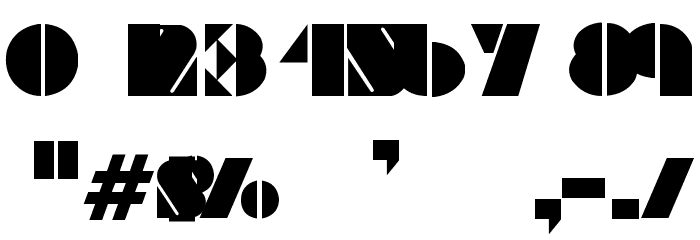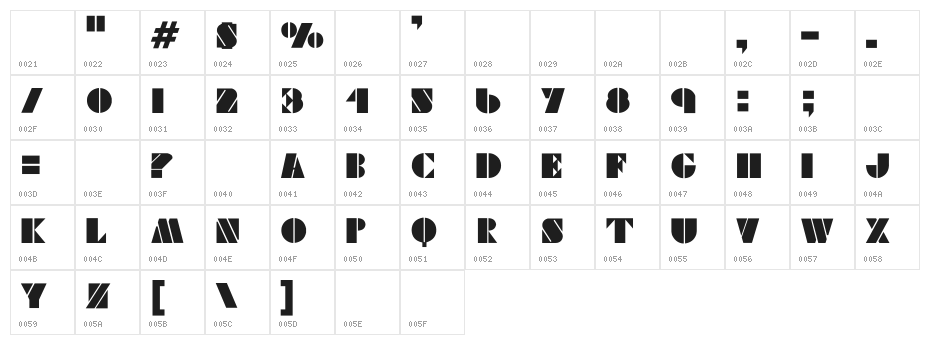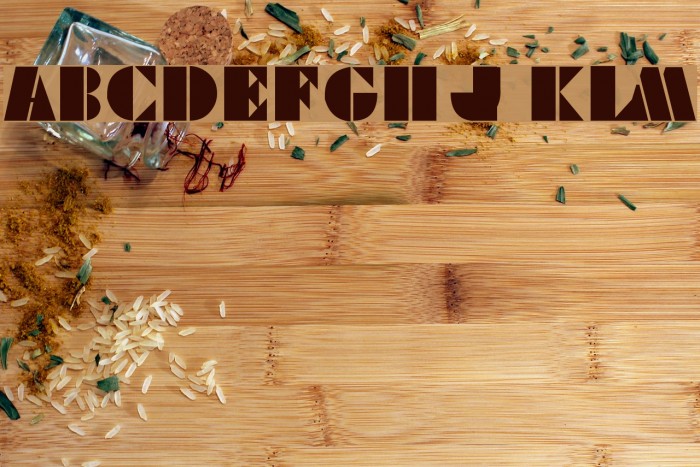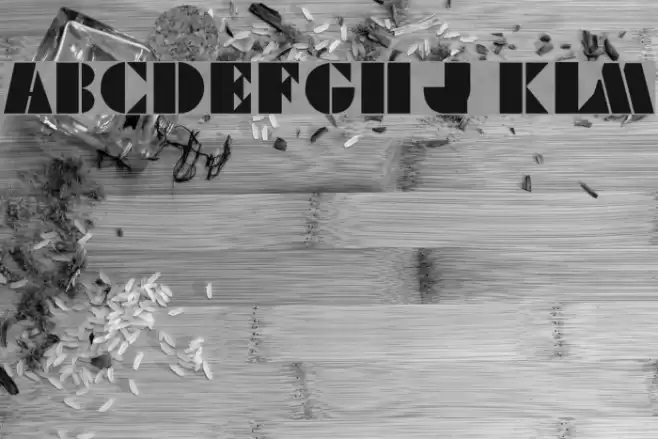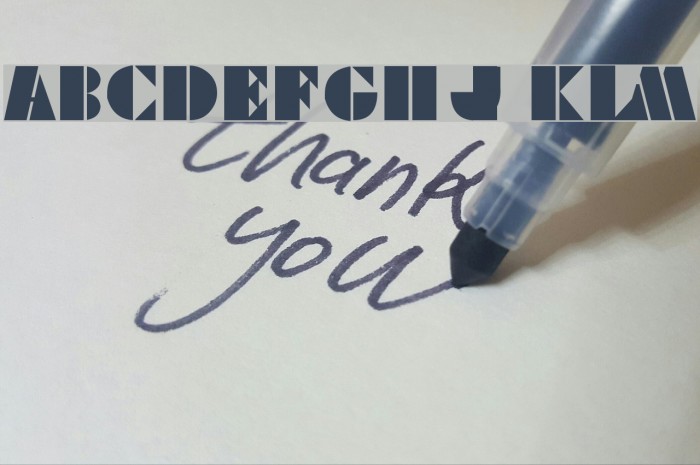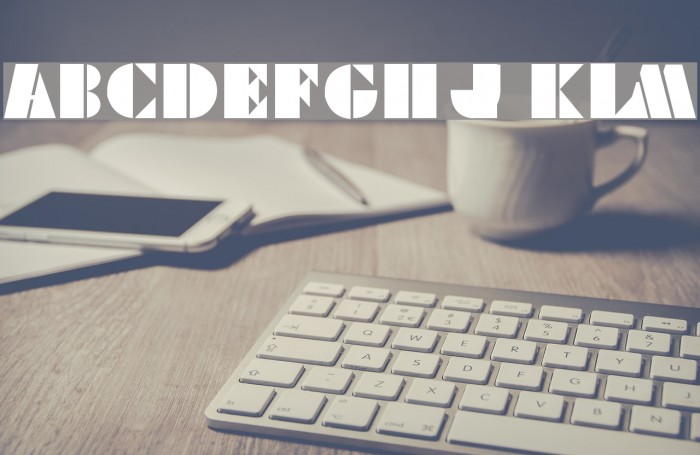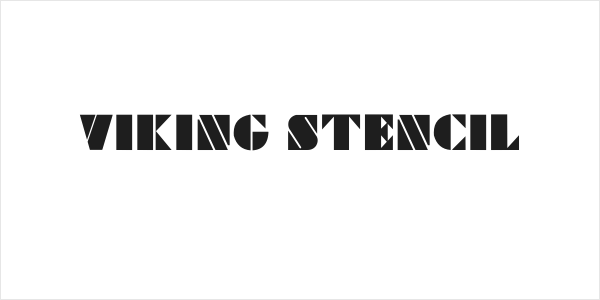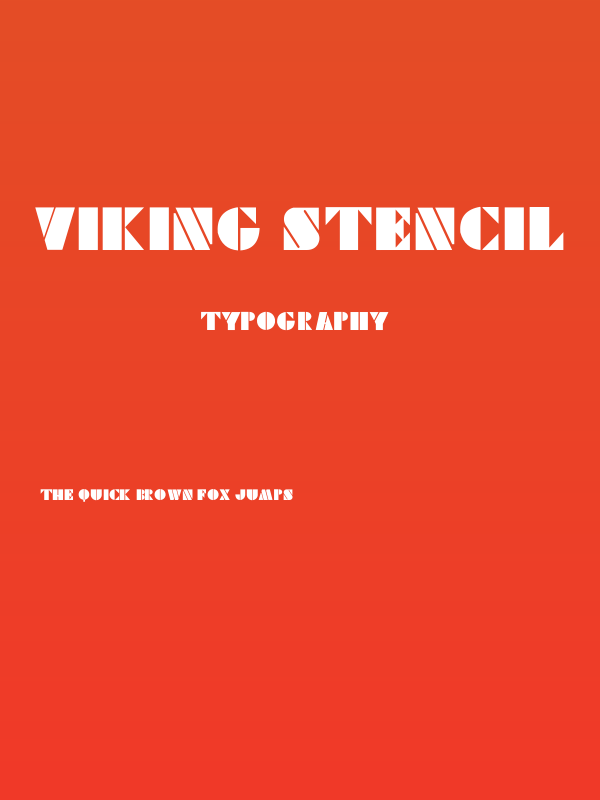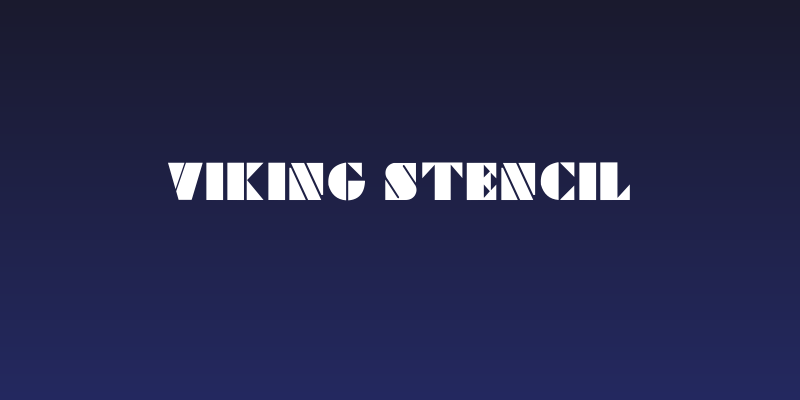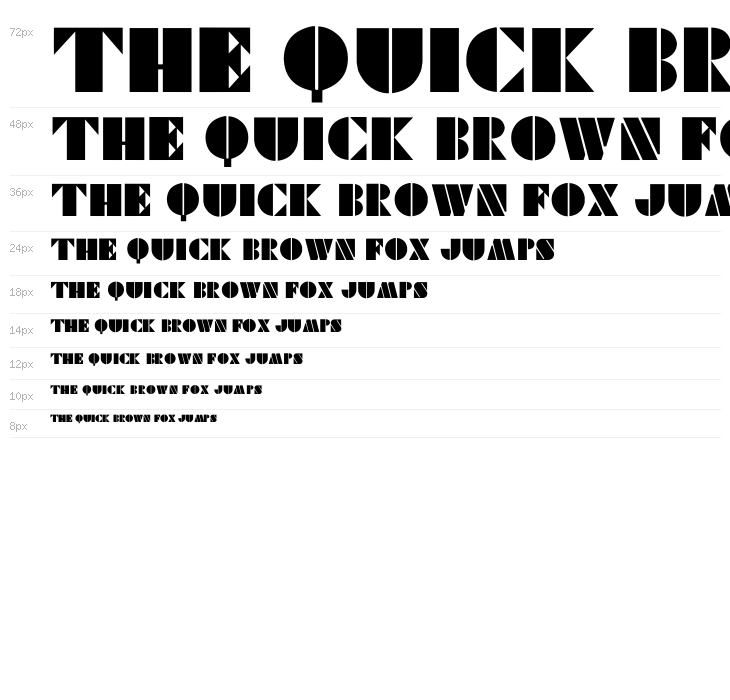
Viking Stencil Font
Viking Stencil Description
This font features a bold, stencil-like design with geometric shapes and sharp angles. The characters are constructed with solid, blocky forms that create a striking visual impact. The uppercase and lowercase letters maintain a consistent style, emphasizing a modern, industrial aesthetic. The numbers and special characters follow the same design principles, ensuring uniformity across all glyphs. The font's unique cut-out sections within each character add to its distinctive appearance, making it ideal for eye-catching designs.